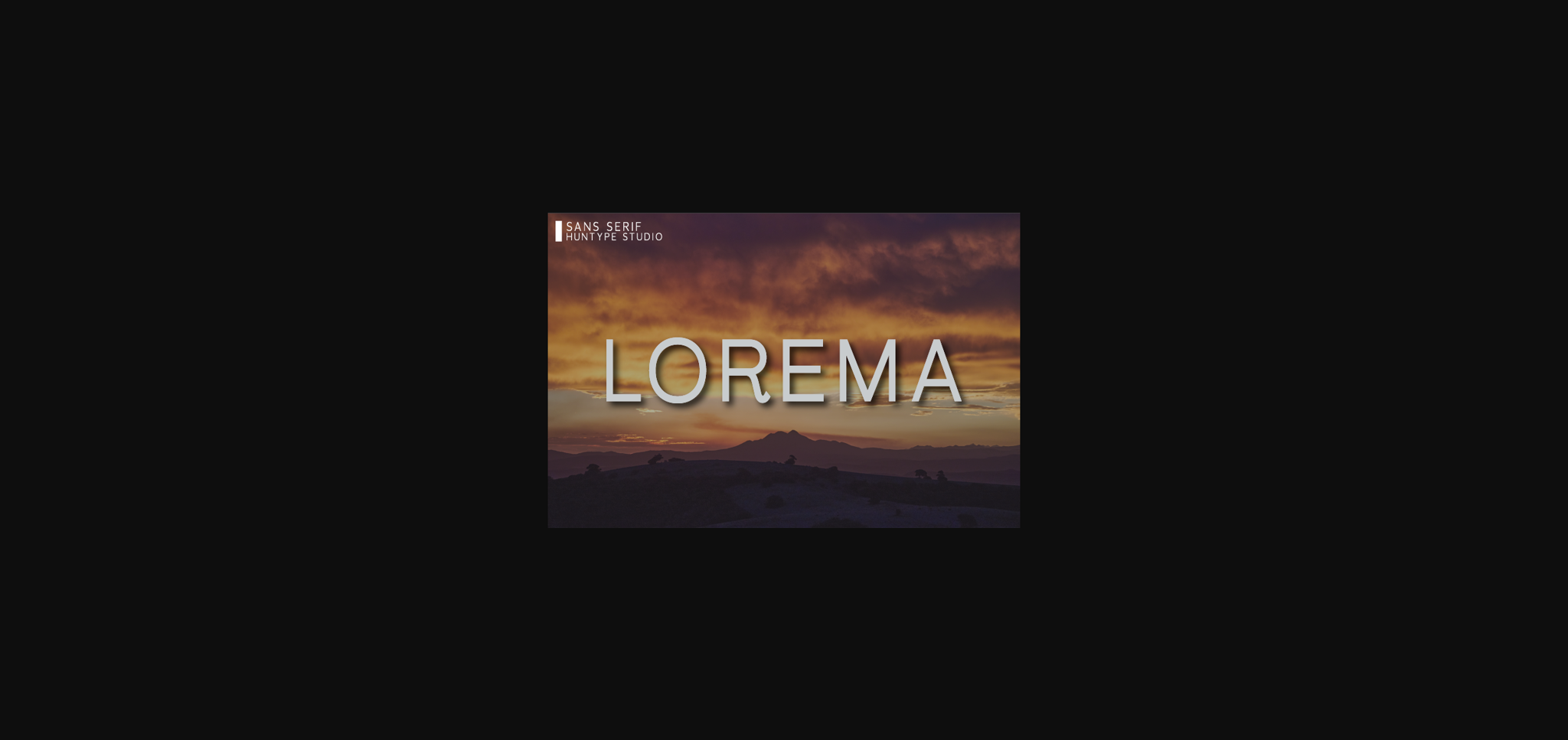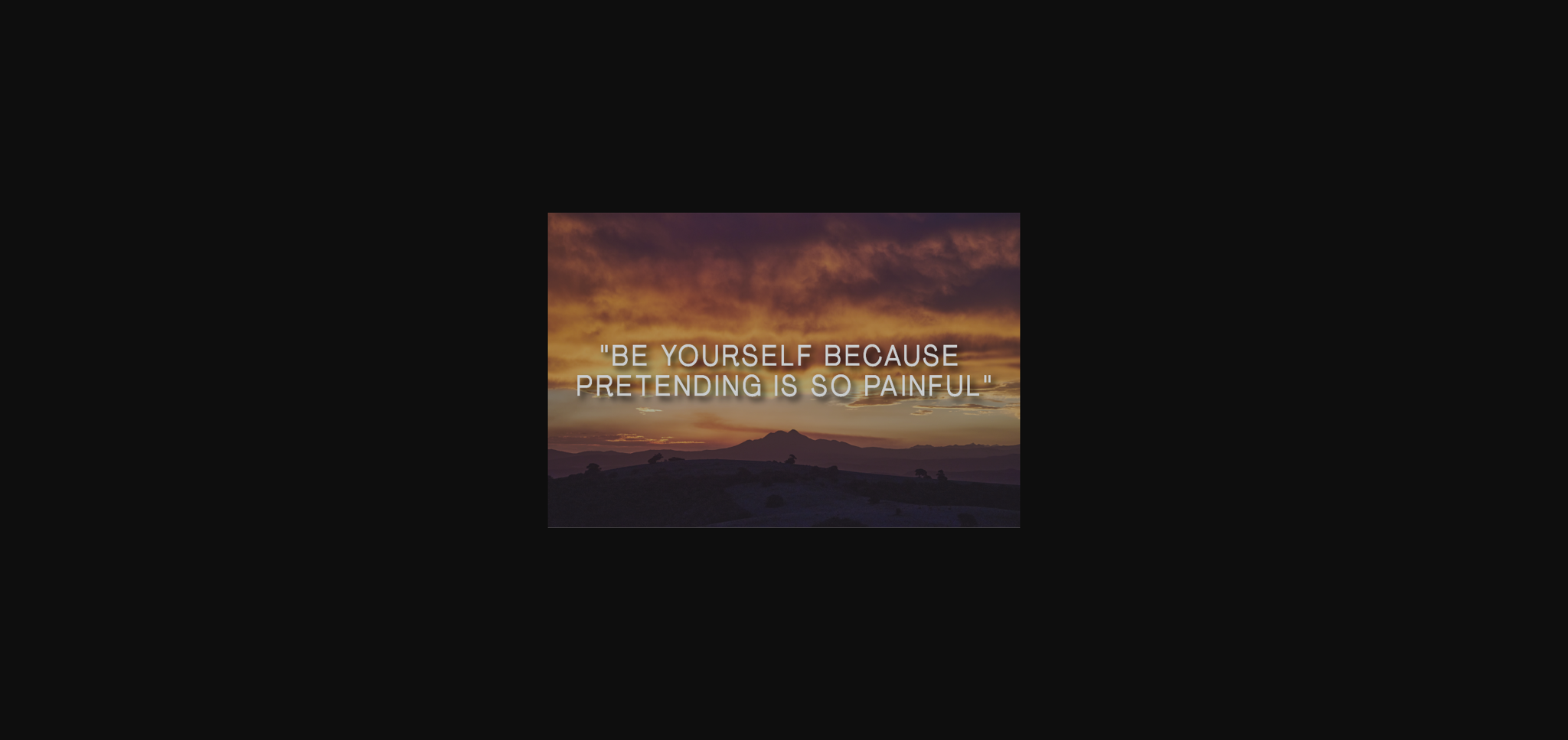
About Lorema Font
Lorema is a simple and neat sans serif font that will complement every project you’re looking to create. Fall in love with its incredibly versatile style and use it to elevate your projects to the highest levels!